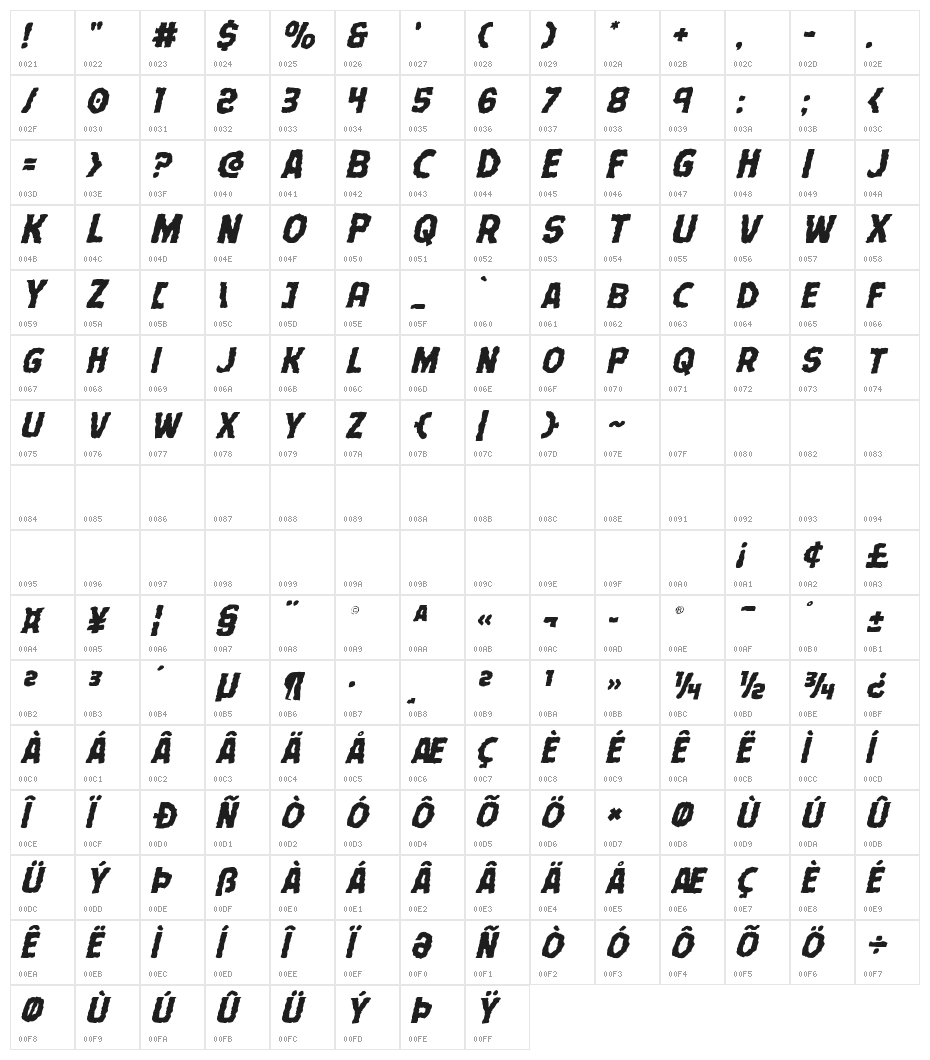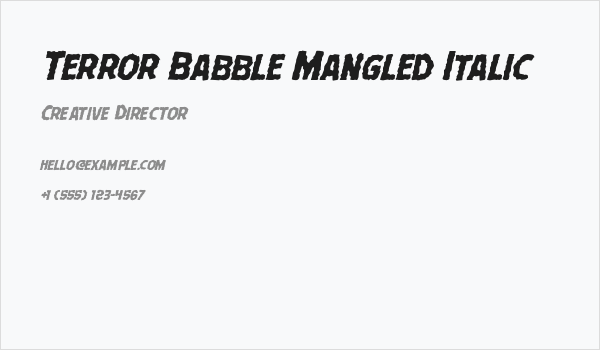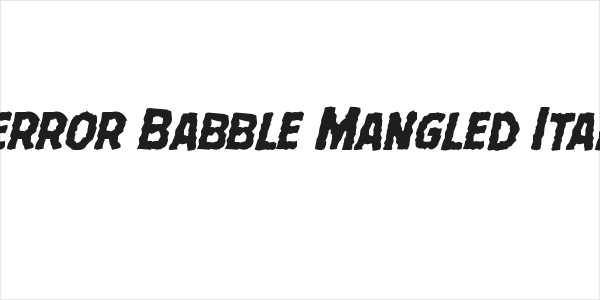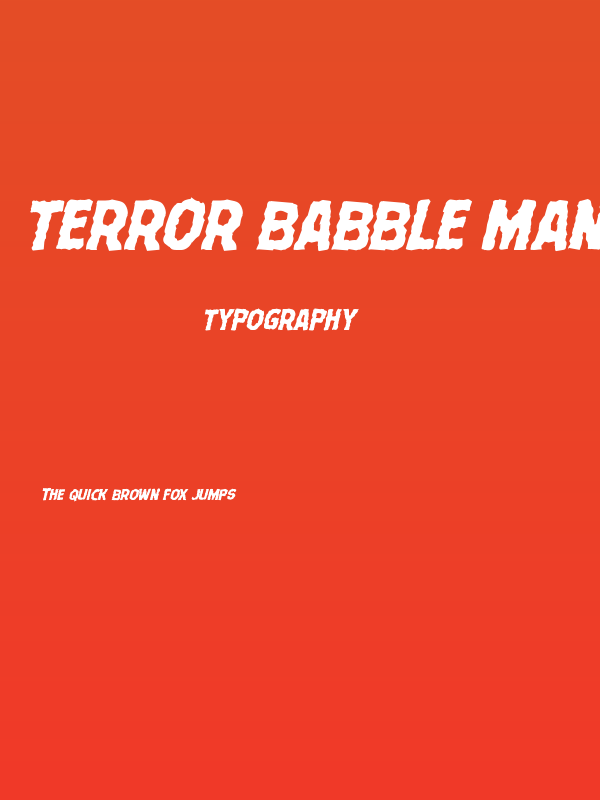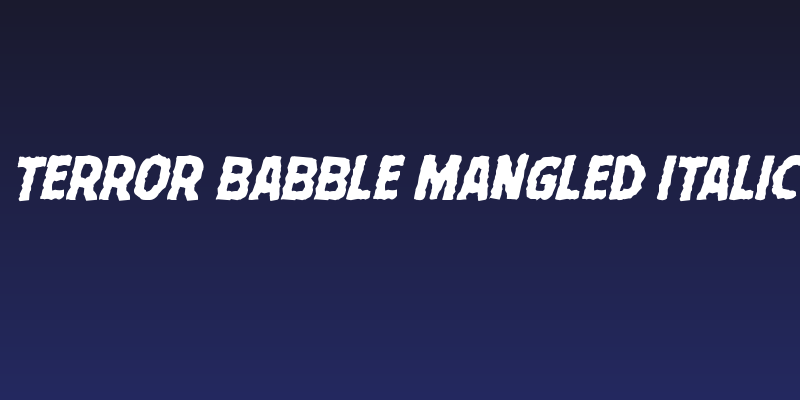
Terror Babble Mangled Italic Font
Terror Babble Mangled Italic Description
This font features a bold and dynamic style with a distinctly jagged and irregular appearance, reminiscent of torn paper or a chaotic brushstroke. The characters are heavily italicized, adding a sense of motion and urgency. The uppercase and lowercase letters maintain a consistent weight, contributing to a cohesive yet unpredictable aesthetic. The numbers and special characters follow the same design principles, ensuring uniformity across all glyphs. This font's unique and edgy style makes it stand out, ideal for projects requiring a dramatic and unconventional look.
| Use Case | Headlines, Posters, Logos |
| Proposed Projects | Ideal for horror-themed posters, edgy album covers, or any design needing a dramatic flair. |